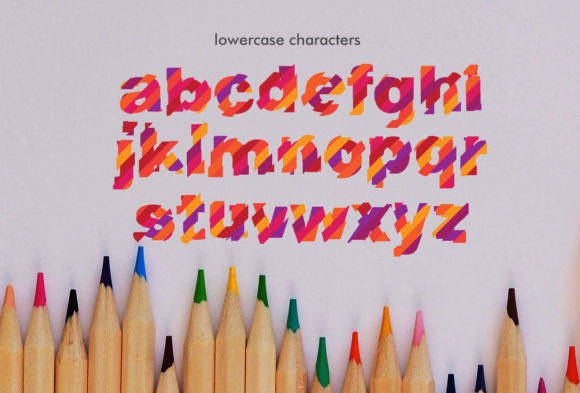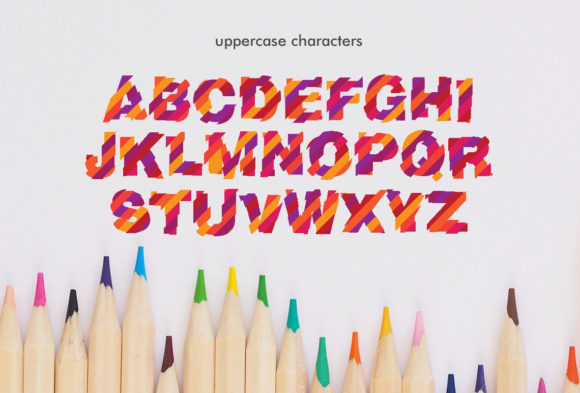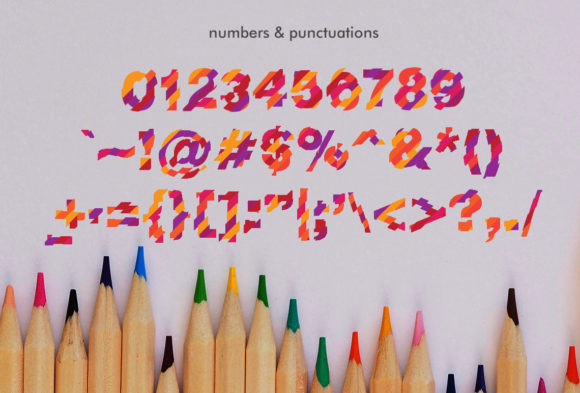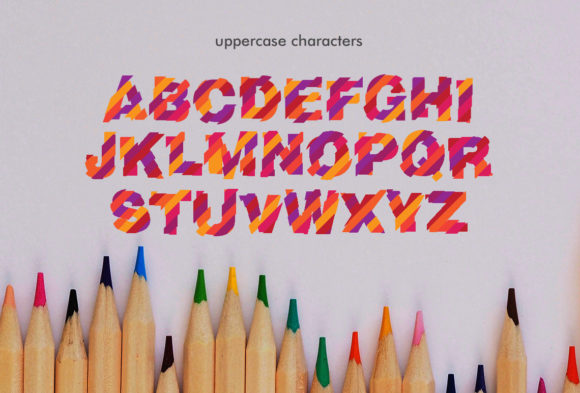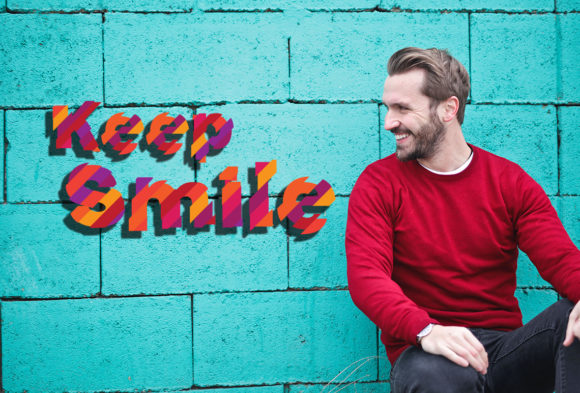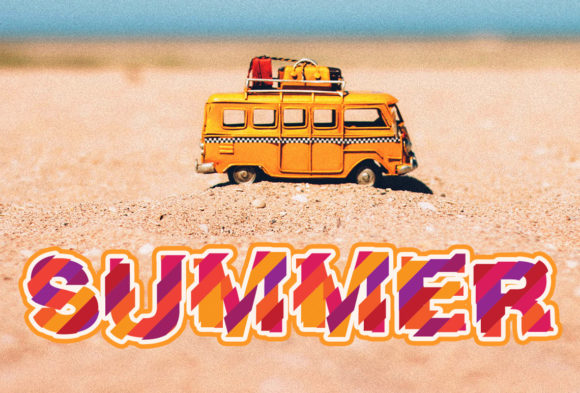
Introducing Color Scratches Font: Add a Touch of Joy to Your Designs
Are you looking for a modern and cool display color font to elevate your designs? Look no further than Color Scratches Font! This vibrant and playful font is perfect for adding a touch of joy to your creations, whether you’re working on cartoon-related designs, children’s games, quotes, titles, brand names, book covers, posters, or any other project that requires a dash of whimsy.
What Makes Color Scratches Font Special?
Color Scratches Font is a modern and cool display color font that stands out from the crowd. Its unique and playful design makes it perfect for a wide range of applications, from kids’ designs to creative branding projects. The font’s color capabilities allow you to add an extra layer of depth and visual interest to your designs, making them truly pop.
Key Features of Color Scratches Font
- Modern and Cool Design: Color Scratches Font boasts a fresh and contemporary design that’s sure to grab attention.
- Color Font (Opentype-SVG): This font is a color font, which means it can be used in compatible software to produce stunning, multi-colored designs.
Use Cases for Color Scratches Font
Color Scratches Font is an incredibly versatile font that can be used in a variety of contexts. Here are some ideas to get you started:
- Cartoon-Related Designs: Add a playful touch to your cartoon characters, logos, or animations.
- Children’s Games: Create engaging and fun game titles, buttons, or graphics for kids.
- Quotes and Titles: Use Color Scratches Font to add a pop of color and personality to your quotes, titles, or headings.
- Brand Names: Create a memorable and eye-catching brand identity with this unique font.
- Book Covers: Add a touch of whimsy to your book covers, making them stand out on bookshelves.
- Posters: Use Color Scratches Font to create vibrant and attention-grabbing posters for events, promotions, or advertisements.